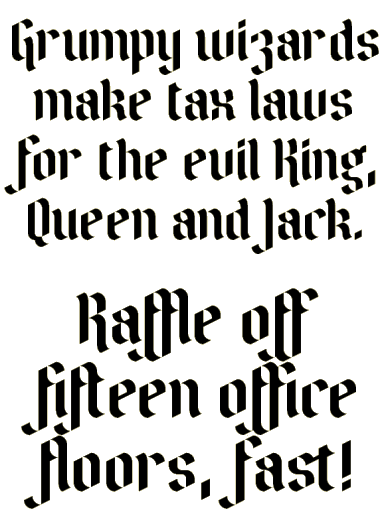
Beautiful. I like the second alternate Q. Nice ligatures.
nice consistent blackletter. kerning could be a bit better, but i know it can't be done... 10/10
Good blackletter. I quite like the middle (third) alternate Q.
Lovely, just lovely. I prefer the second Q. :)
Nice work, love &, great solution for @!
Thanks, everyone! I've changed Q, added some Latin accents, and made swash variants for some letters.
@laynecom: The kerning for e, f, t and a few other characters could be decreased by half a brick, but that can't yet be done on Fontstruct. Also, some kerning pairs are required.
Very swashalicious.